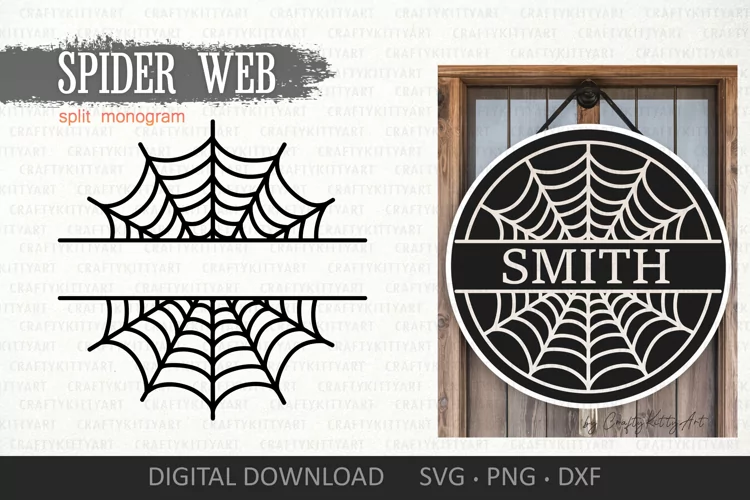
Spider Web Split Font - A Monogram Font
This font is based off our original split monogram font. Use uppercase letters to choose your split letter and then fill it in using lowercase letters. This font is perfect for making fall and Halloween monogrammed signs and gifts!
- Uppercase: A-Z
- Uppercase: A-Z Split Letters for Monograms